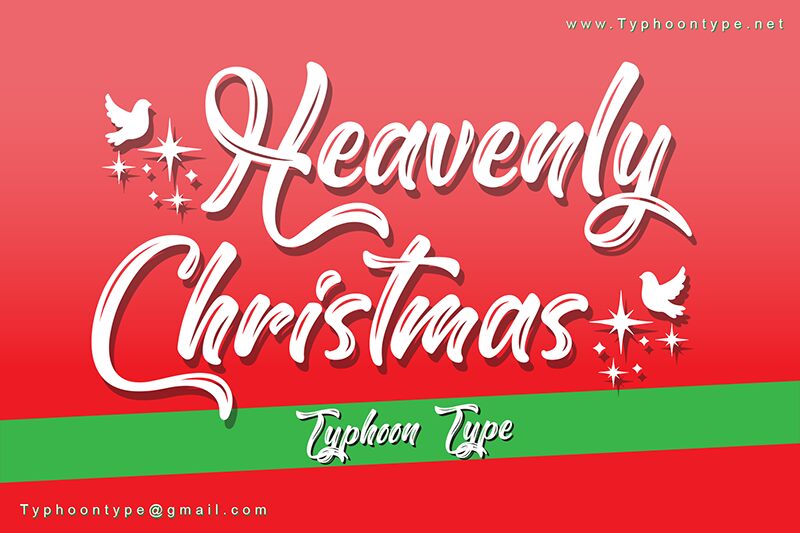
Heavenly Christmas, envisioned by the creative Typhoon Type - Suthi Srisopha, captures the whimsical essence of the holiday season through every flourish and character. This Christmas-themed font is a beautiful blend of tradition and modernity, designed to inject your projects with the warmth and cheer of yuletide celebrations. Its script style harks back to the elegance of classic calligraphy while maintaining a contemporary edge that resonates with current design trends.
Perfect for those special seasonal touches in advertising, event invitations, or product packaging, Heavenly Christmas is versatile enough to adorn any project where a sprinkle of festive spirit is desired. Its charm lies in its ability to evoke nostalgia whilst still appearing fresh and engaging in today’s visual landscape. Embrace the joyous atmosphere that Heavenly Christmas adds to your creative endeavors-your designs will not just speak but sing with holiday glee!
Type ( before word to get Sparkling Bird and Type ) after word to get Sparkling Bird.
Example : (Heavenly Christmas)